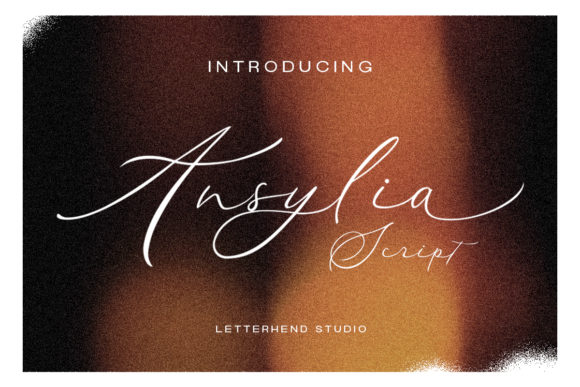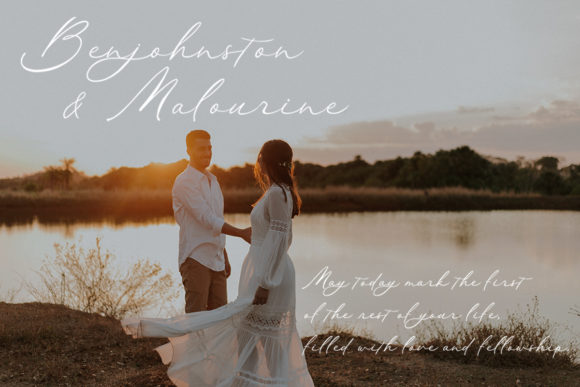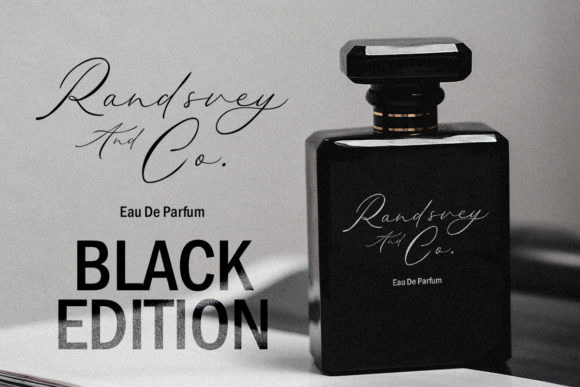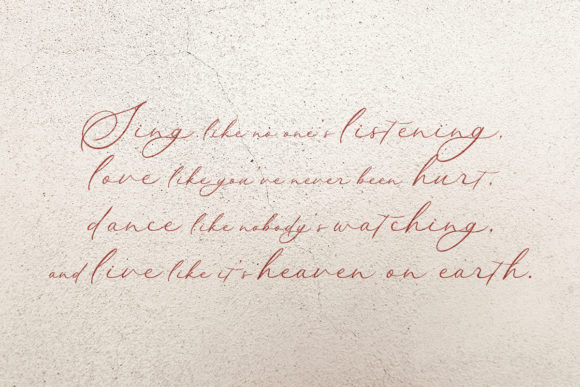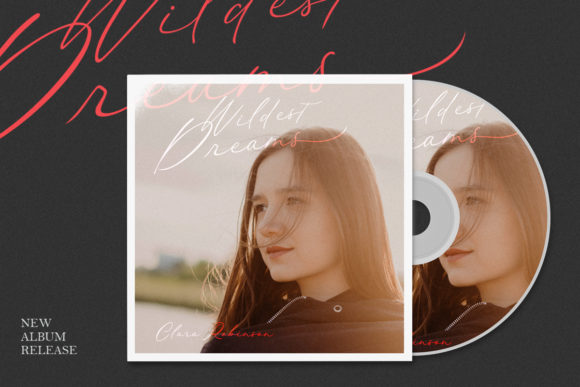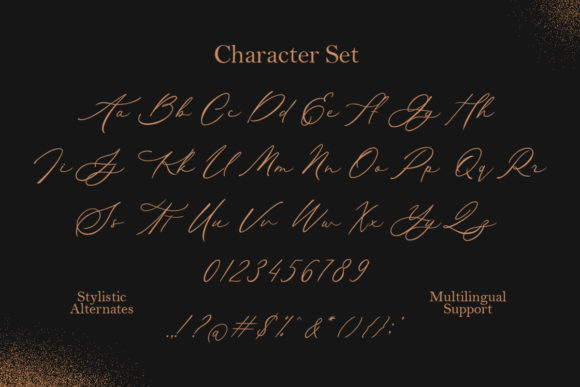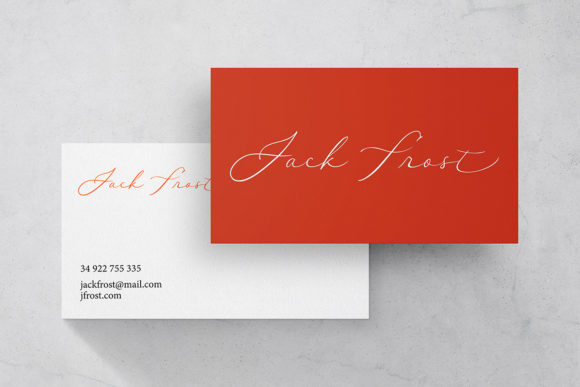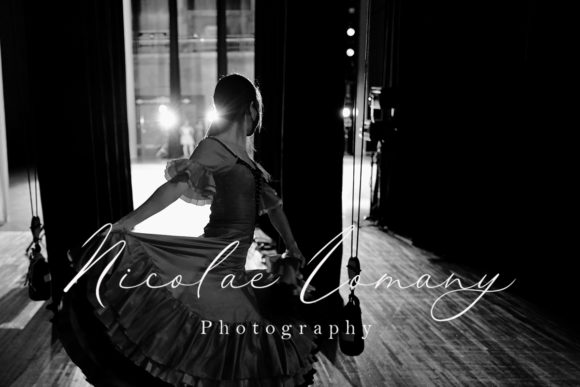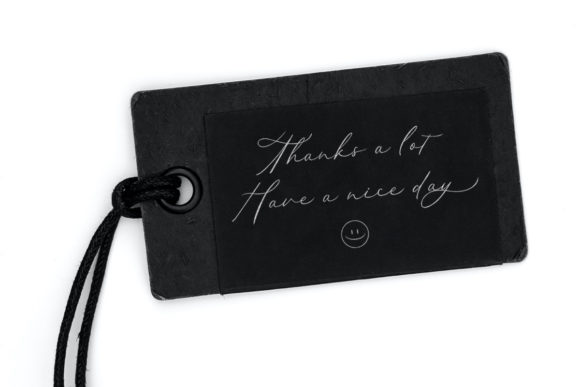
Ansylia Font
About Ansylia Font
Ansylia is a thin and casual script font. Simple and easy to use, this font will be very beautiful if you mix it with your various craft designs.